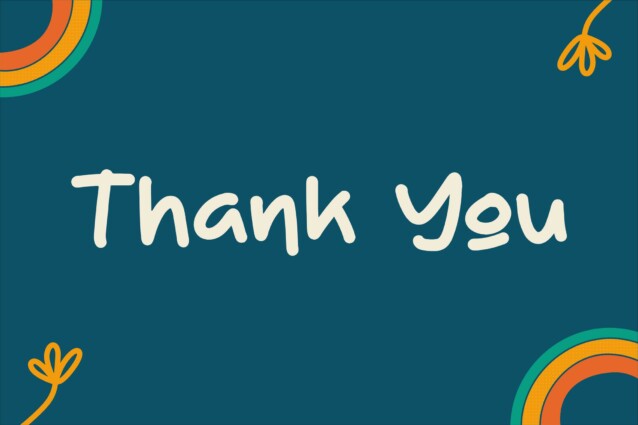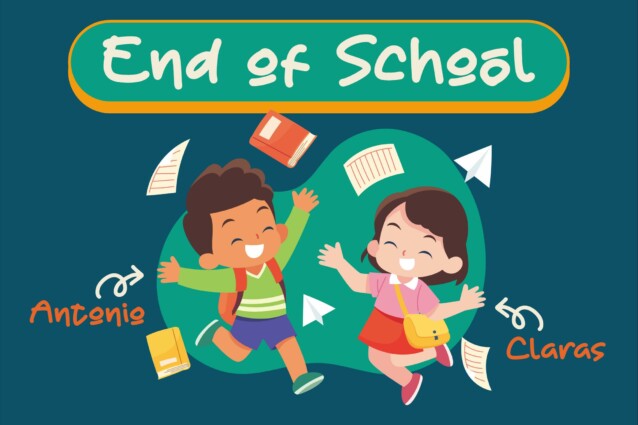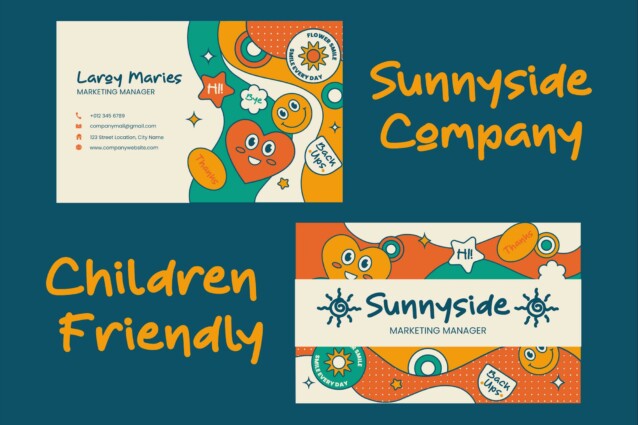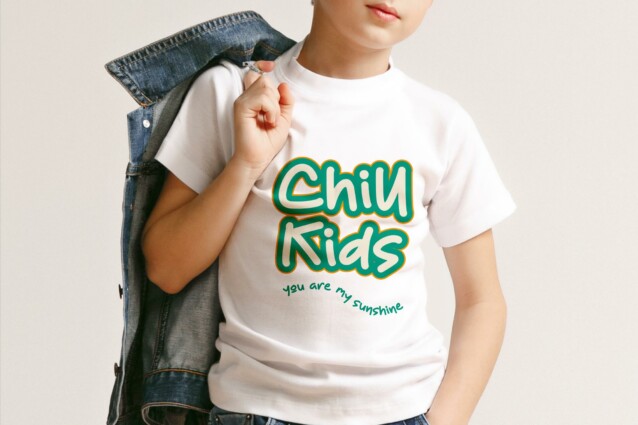
Paultine Groovy Font
Paultine Groovy Font is a Cute Handwritten Font, suitable for any projects such as: logos, branding projects, homeware designs, product packaging, mugs, quotes, posters, shopping bags, t-shirts, book covers, name card, invitation cards, greeting cards, label, photography, watermark, special events, and all your other lovely projects that need a beautiful script taste.